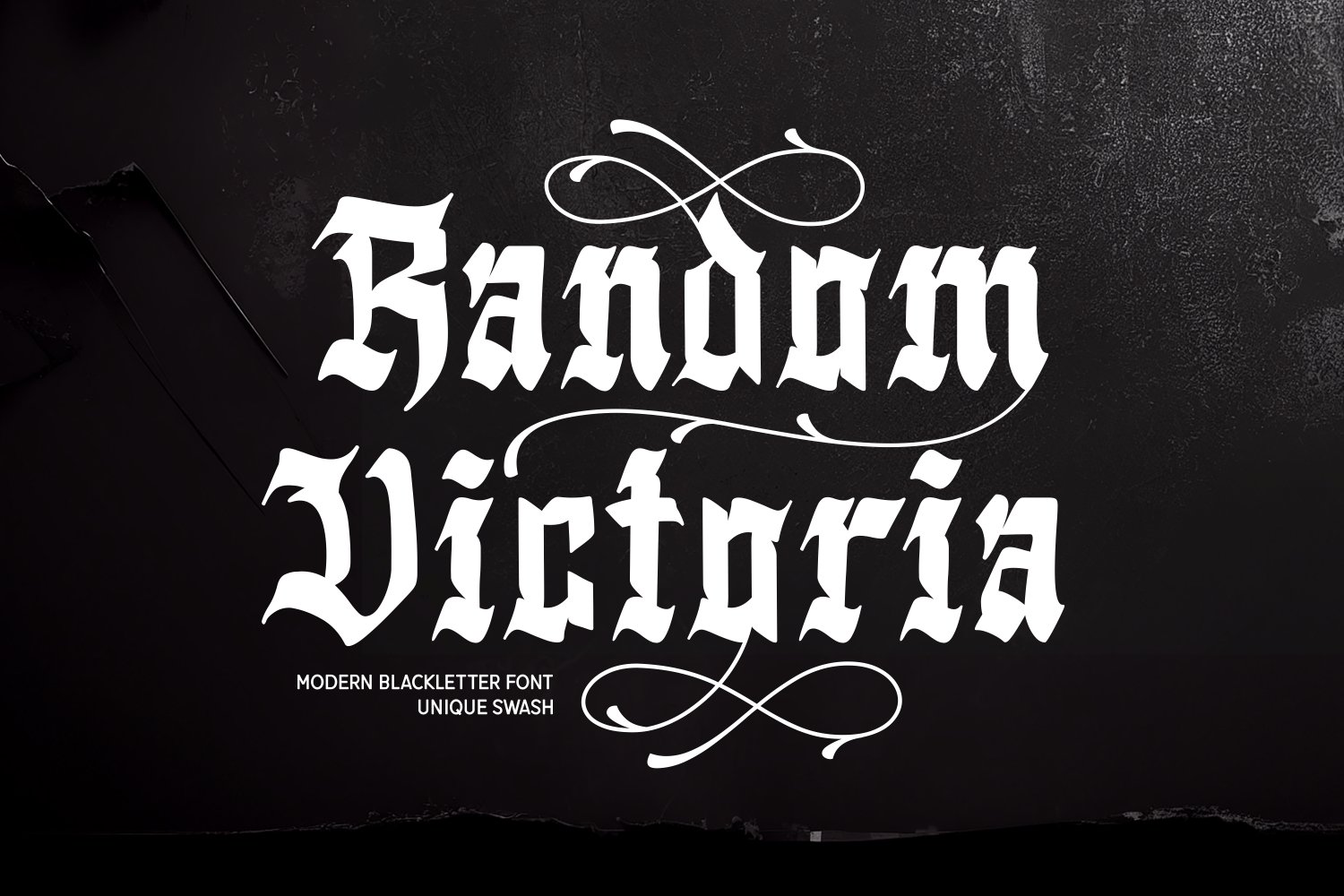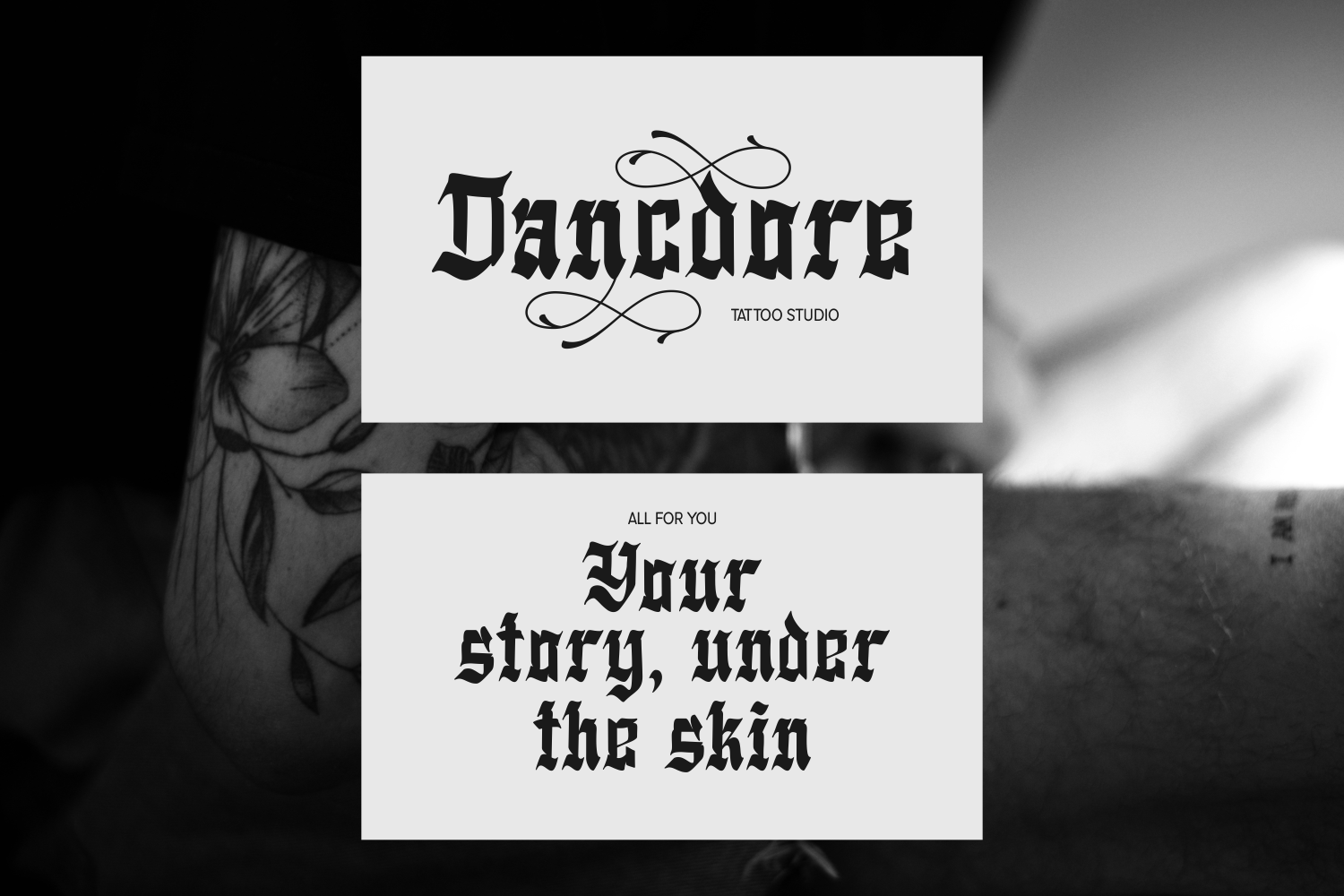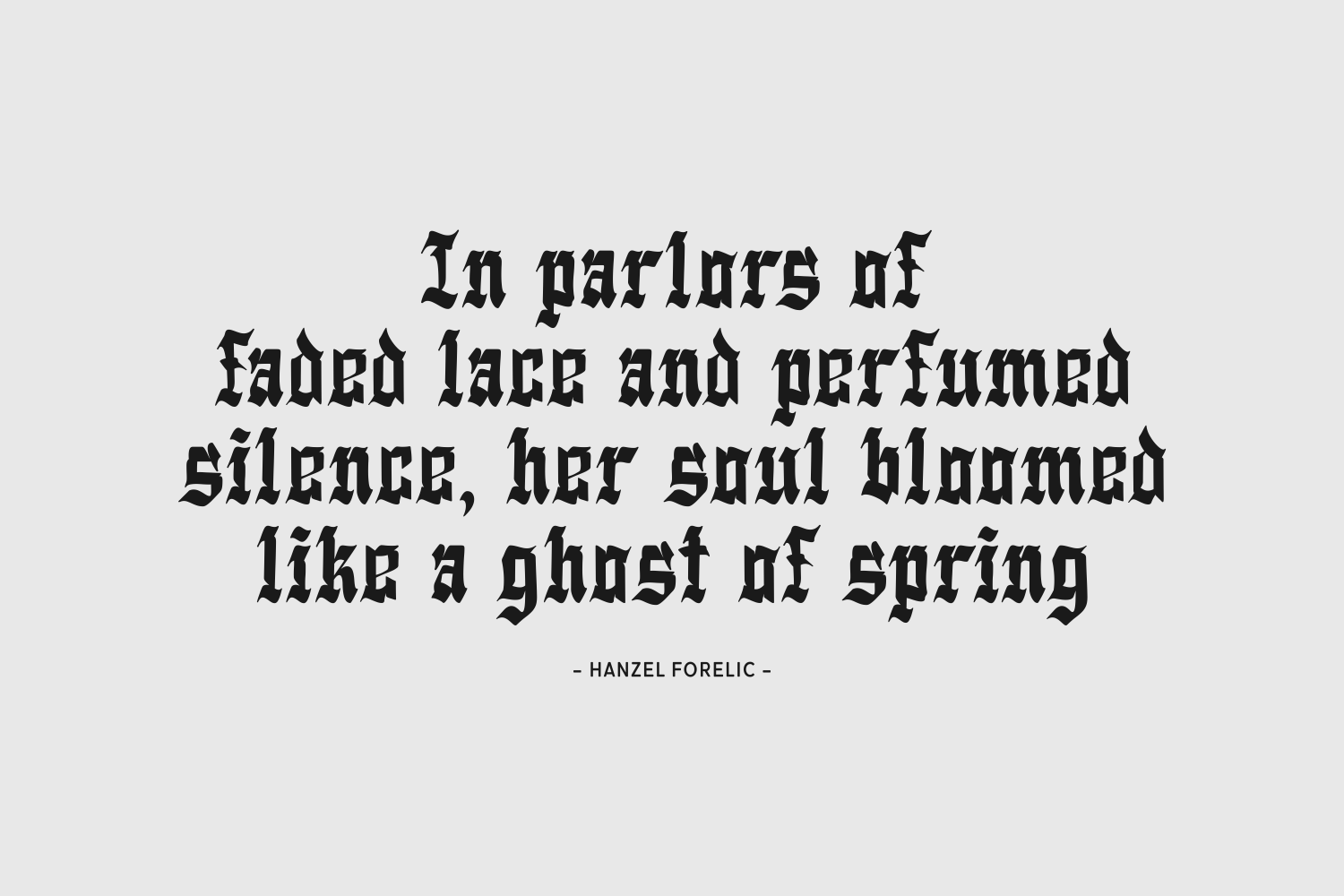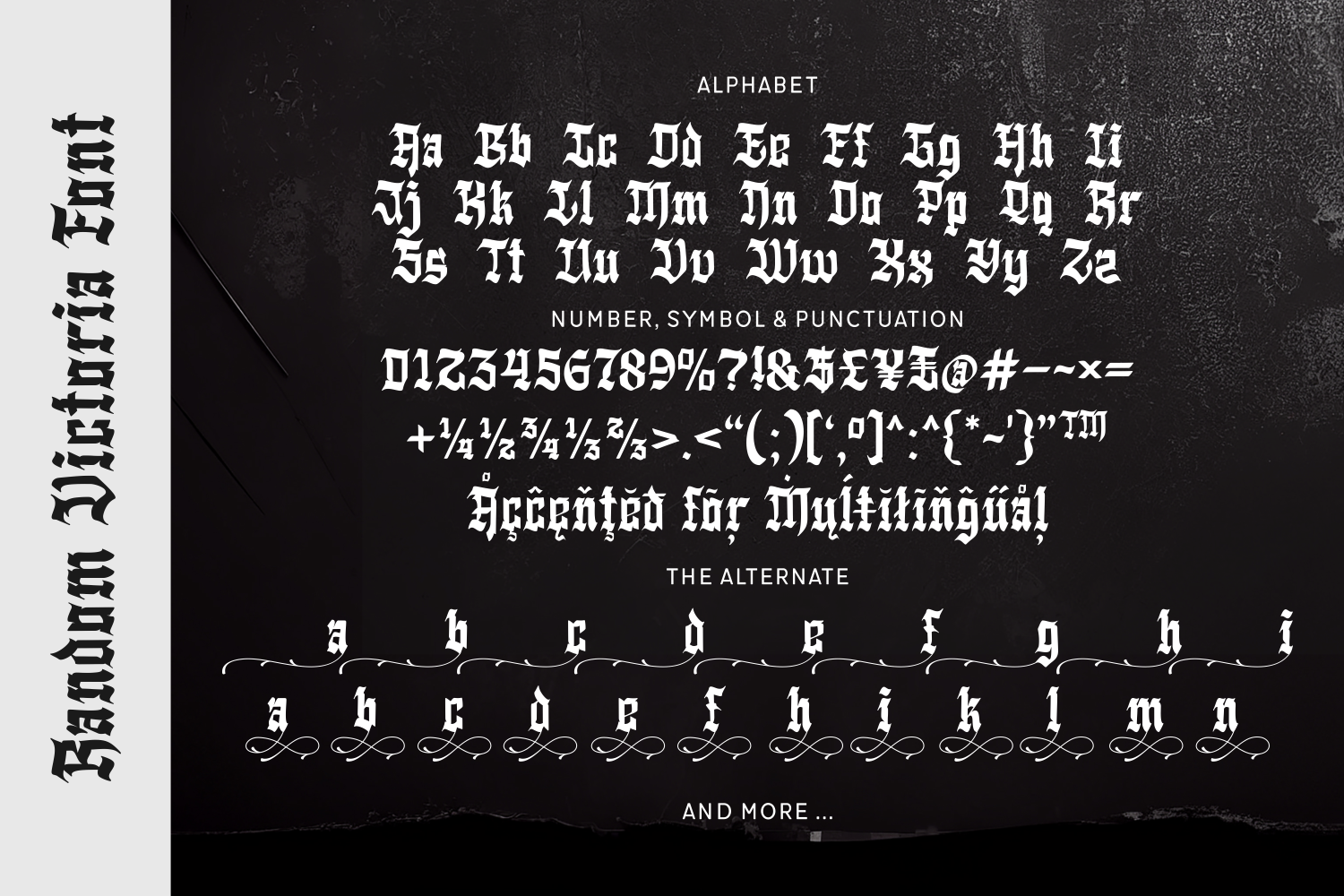
Random Victoria
Random Victoria is a bold blackletter font with elegant swashes and ornate medieval flair. Perfect for dramatic branding, gothic posters, or historical designs seeking a luxurious edge.